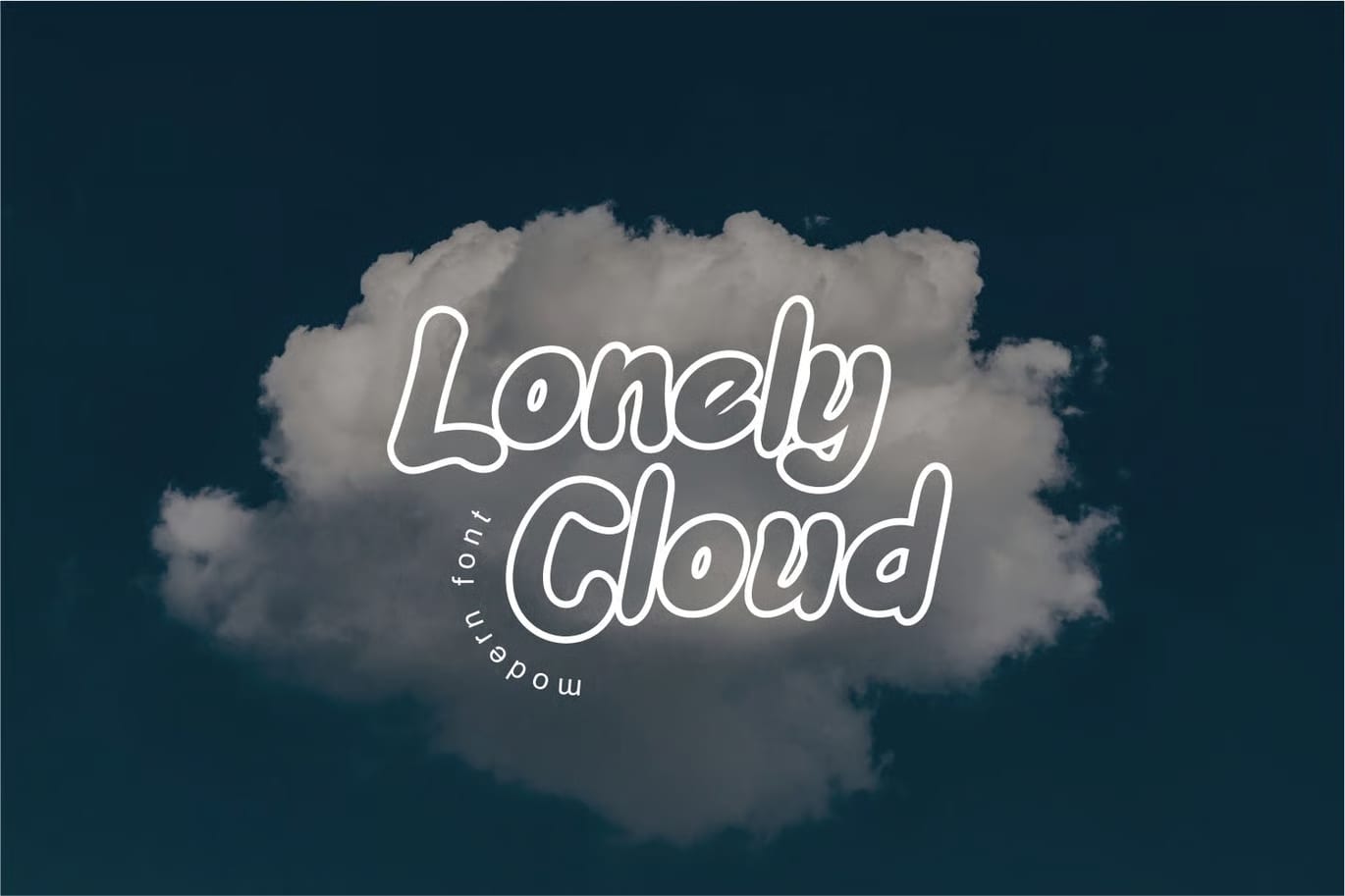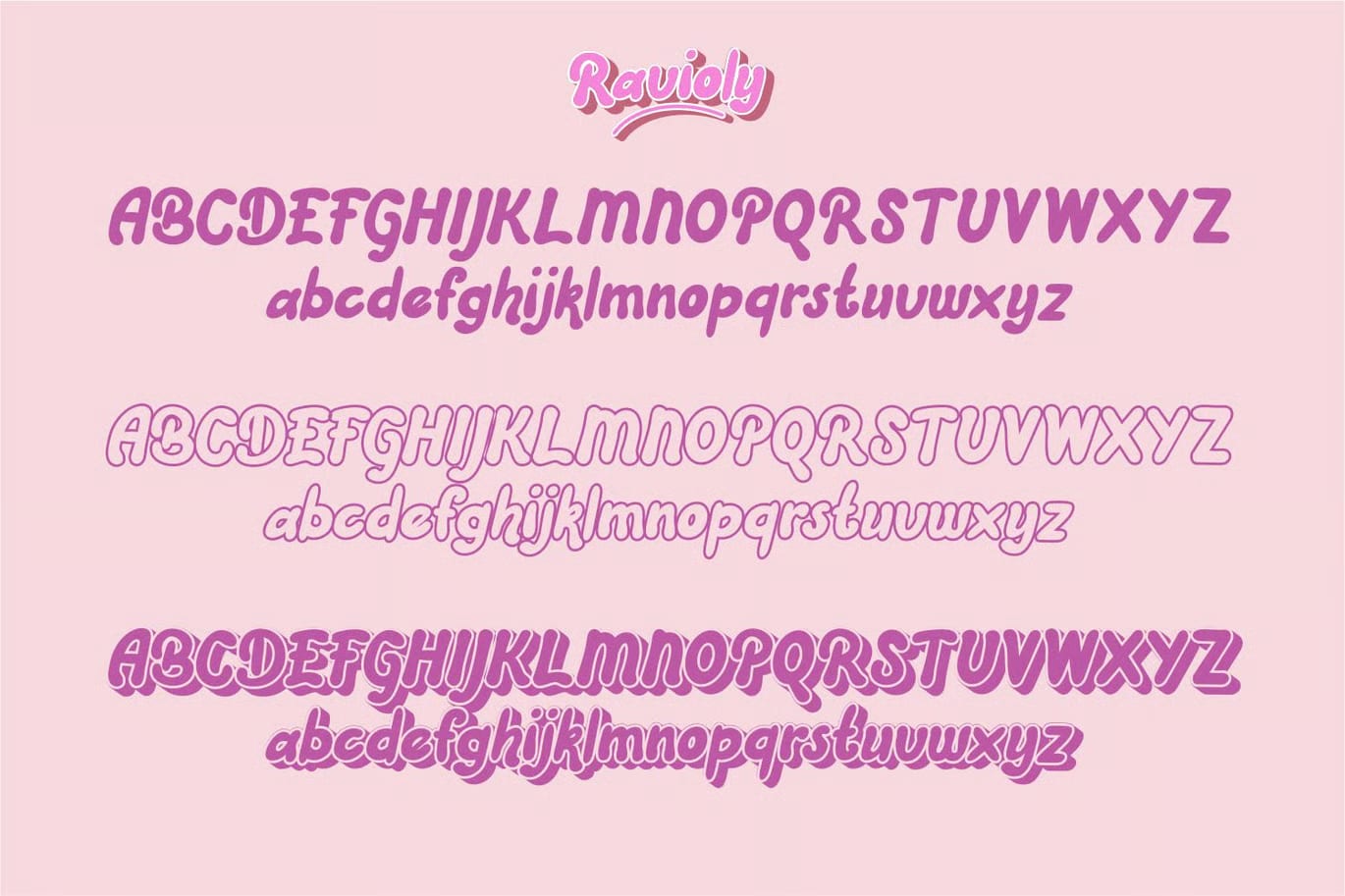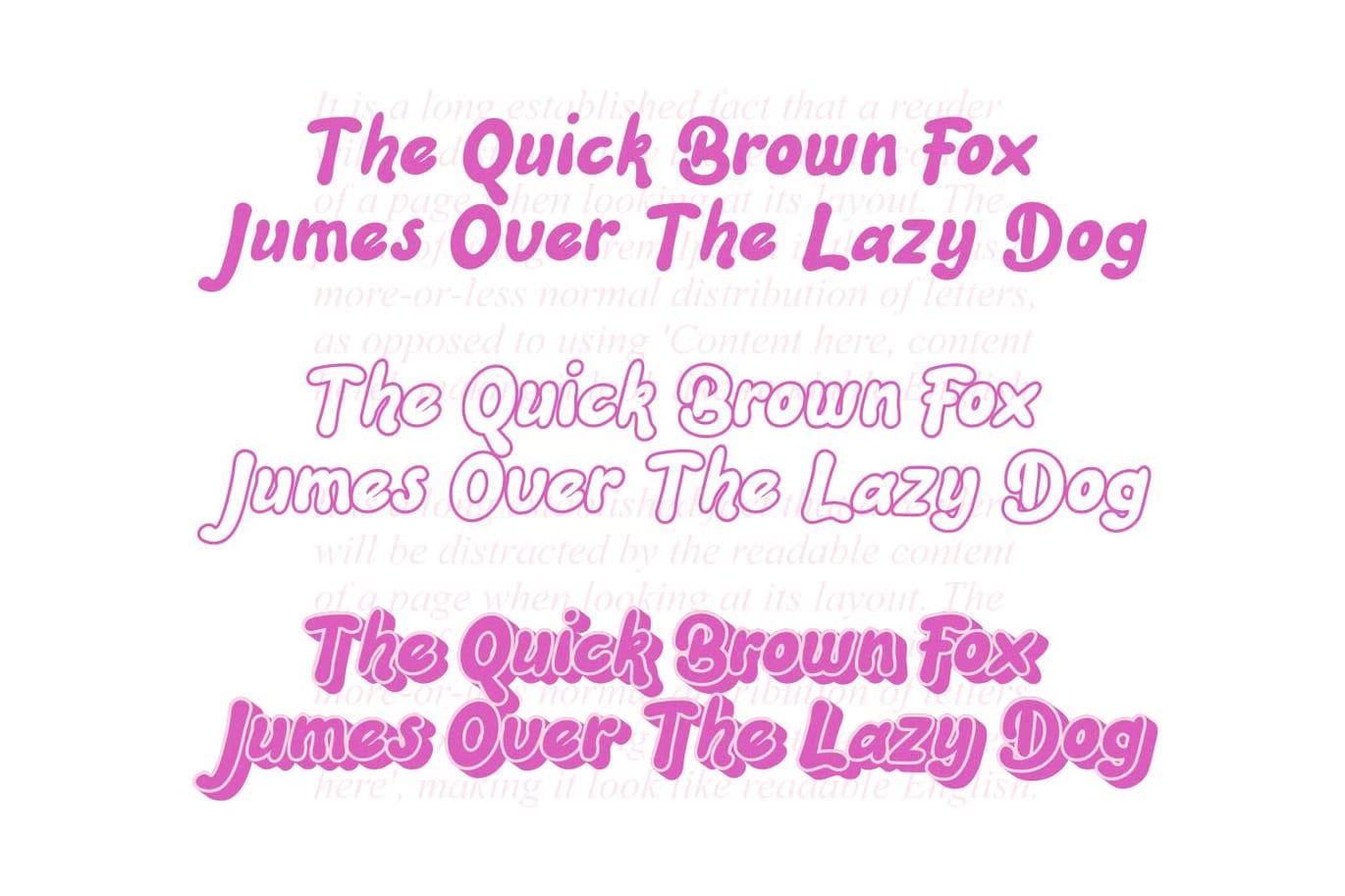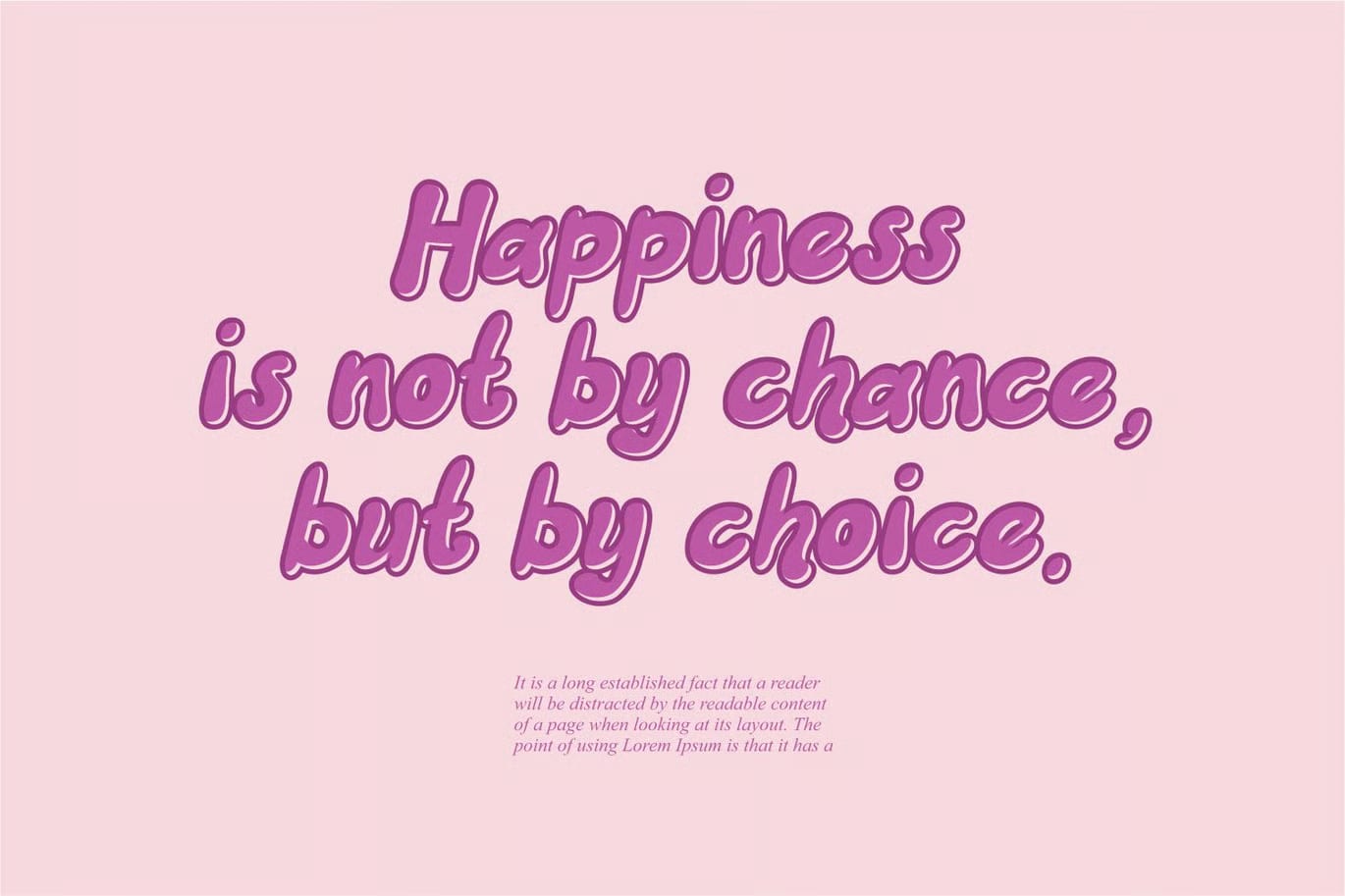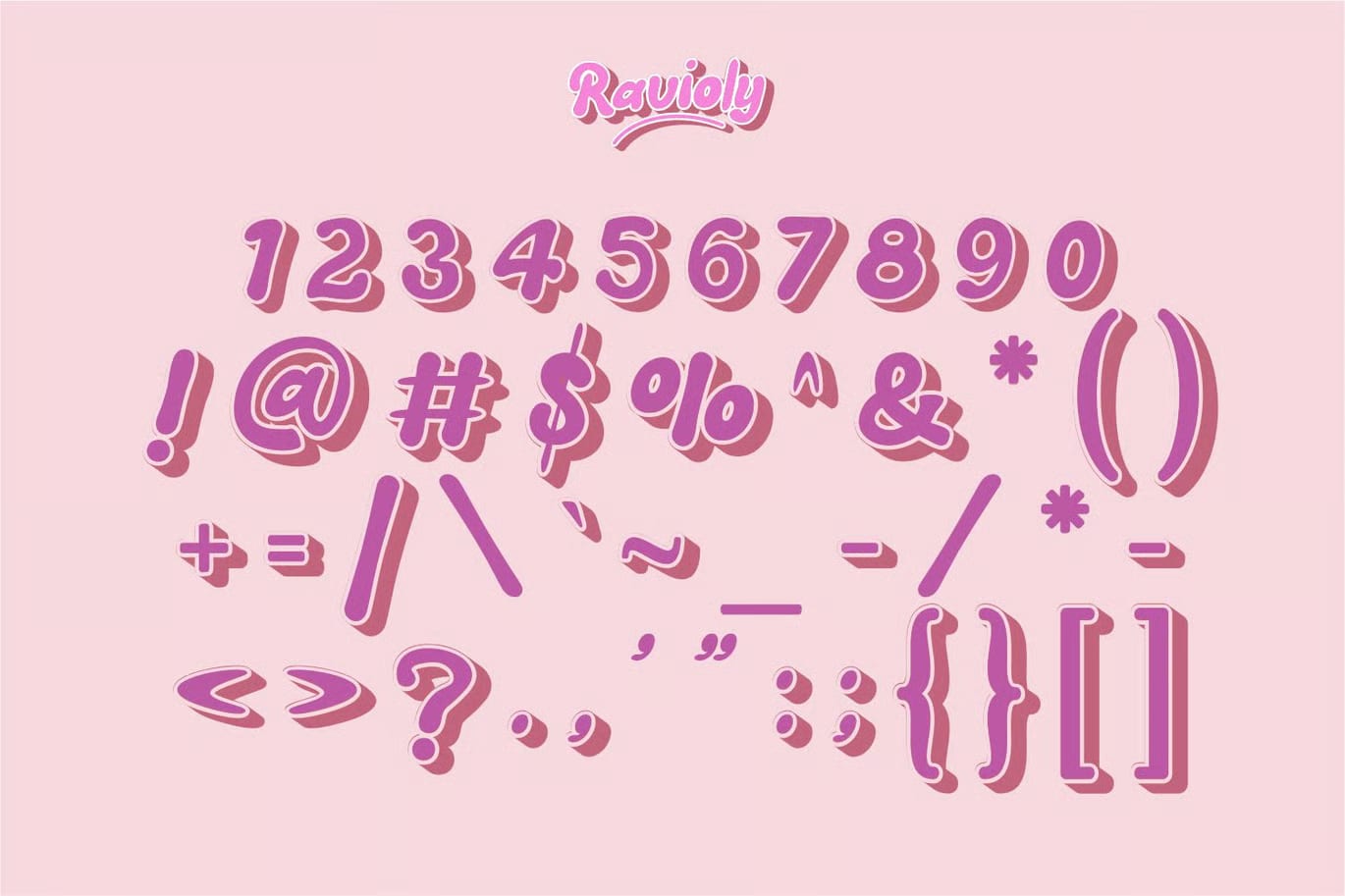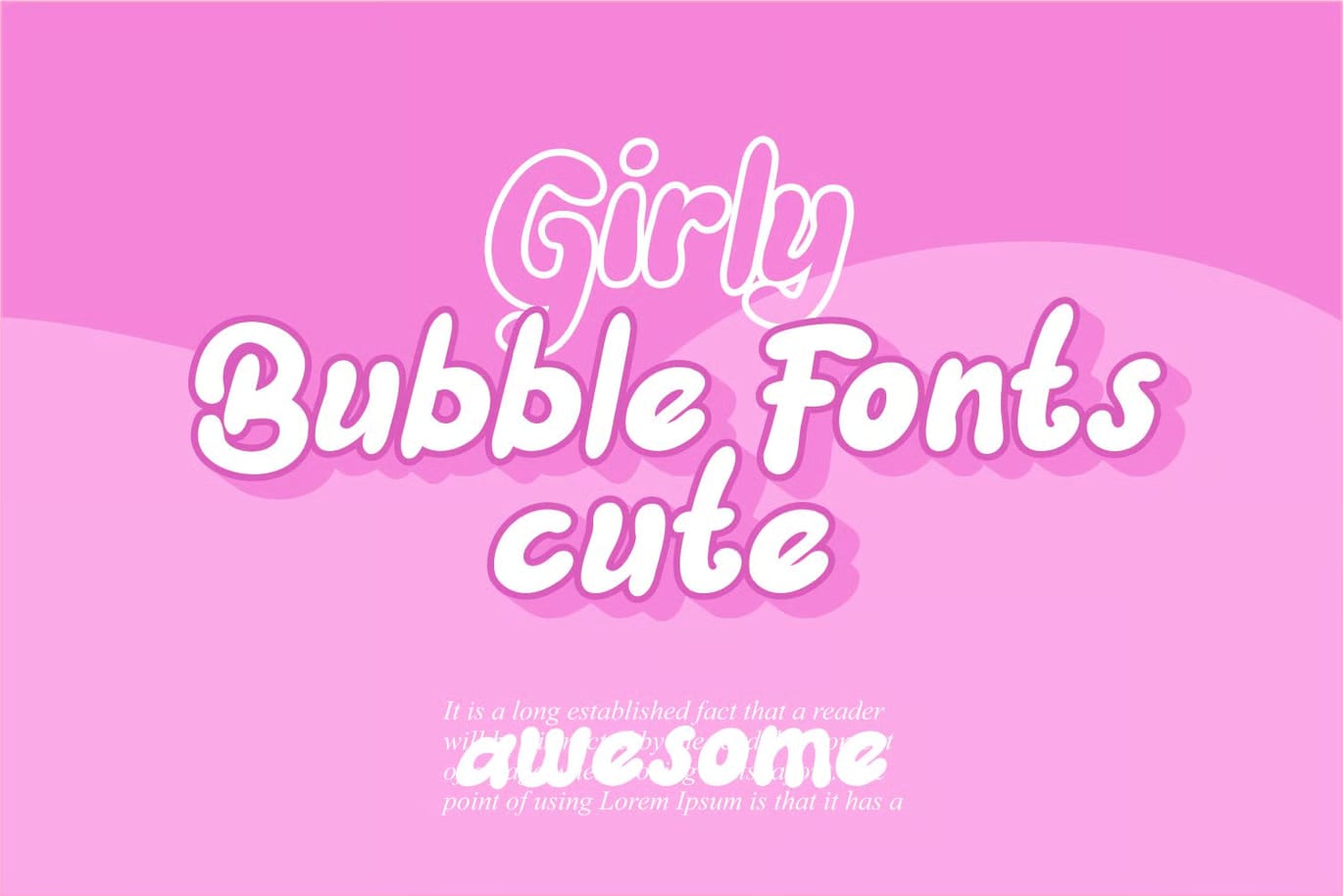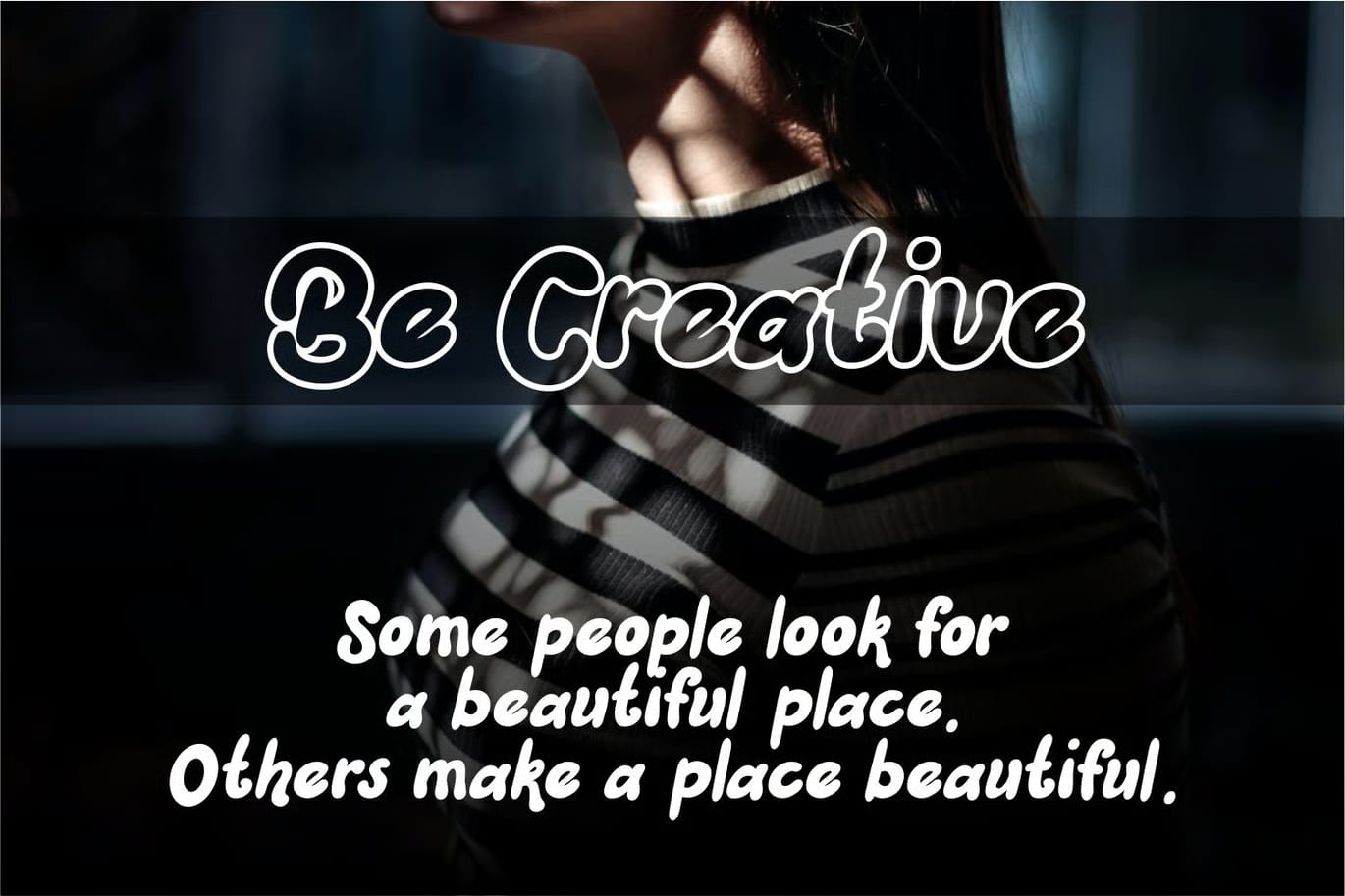
Ravioly is a free decorative font with a bubble-style 3D look. It brings together display, fancy, retro, and bubble elements in one playful typeface, so it can give your text a lively and unique feel.
This font works best for headings, logos, and short brand text rather than long paragraphs. It can help your design feel cheerful, energetic, and strong, while still keeping a soft and rounded character.